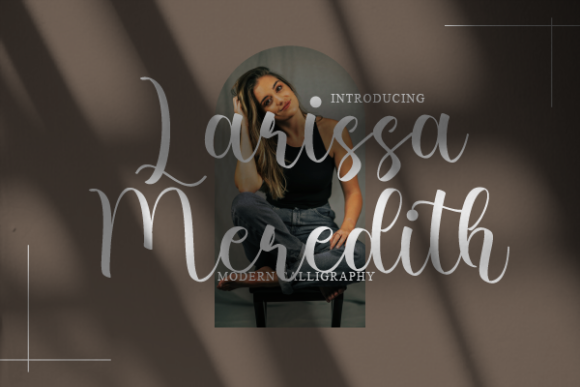
Introducing Larissa Meredith Font, a captivating script font family that transforms your designs into breathtaking masterpieces. Its flowing, elegant strokes evoke the charm of handwritten notes, making it the perfect choice for home décor projects, wedding invitations, and social media posts.
Larissa Meredith isn't just a font; it's an artistic expression that adds a touch of warmth and personality to your creations. The stylish letters flow effortlessly, creating a визуальный шедевр reminiscent of calligraphy. Whether you're designing wall displays, advertisements, product packaging, or personal invitations, Larissa Meredith Font will elevate your project with its timeless beauty.
With Larissa Meredith Font, your designs will capture the imagination and leave a lasting impression. Customize logos, watermarks, and photography with its graceful characters, making your brand stand out from the crowd. This versatile font will transform your creative vision into reality, turning everyday designs into works of art.
Embrace the artistry of handwritten charm and let your designs speak for themselves. Larissa Meredith Font is the perfect companion for any project that requires a touch of elegance and sophistication. Dive into a world of creativity and let your imagination soar with this exquisite font.